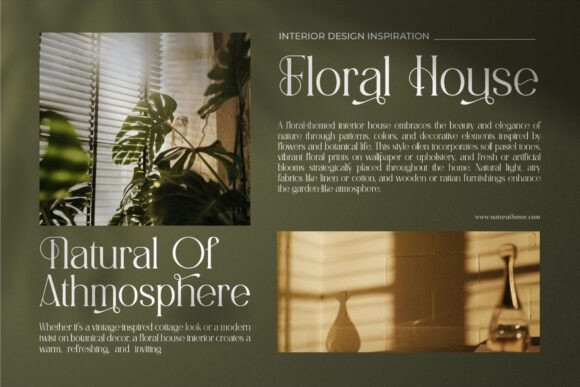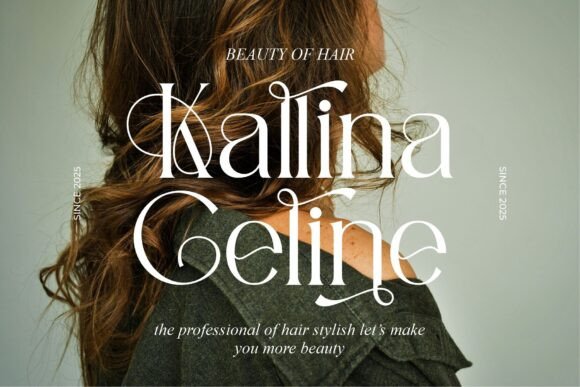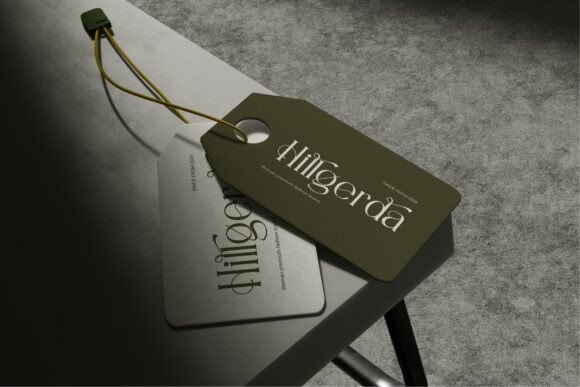
Billande Font
Billande is a stylish serif font with graceful curves, elegant swashes, and refined contrast—perfect for branding, editorial design, and fashion-forward logos. Its delicate ligatures and high-end feel make it ideal for anyone looking to add a luxurious and modern twist to their typography.